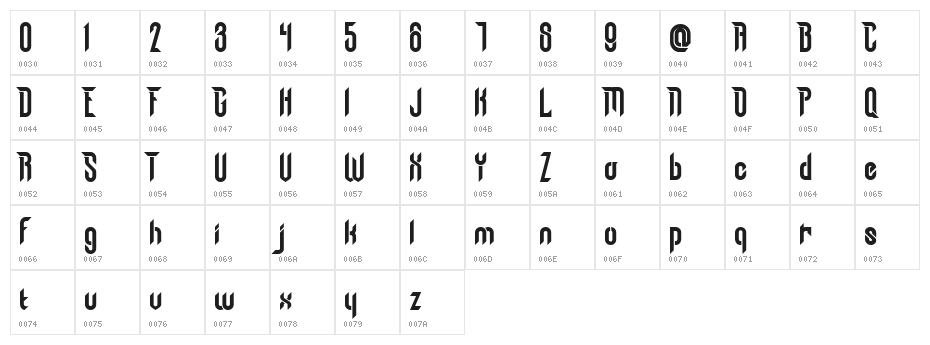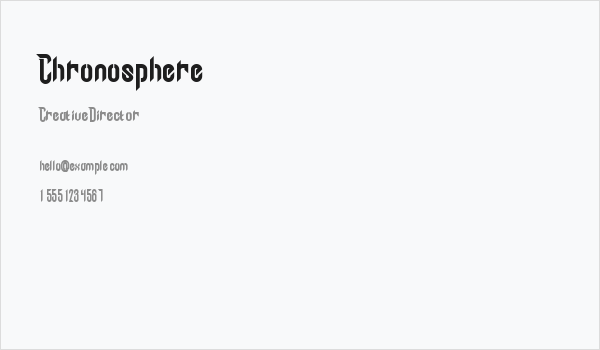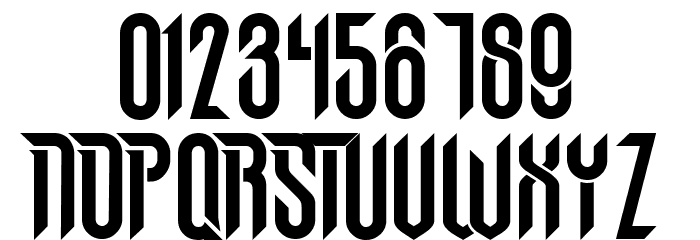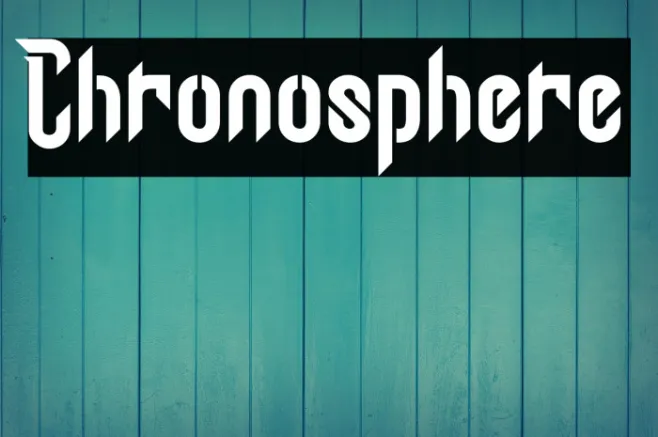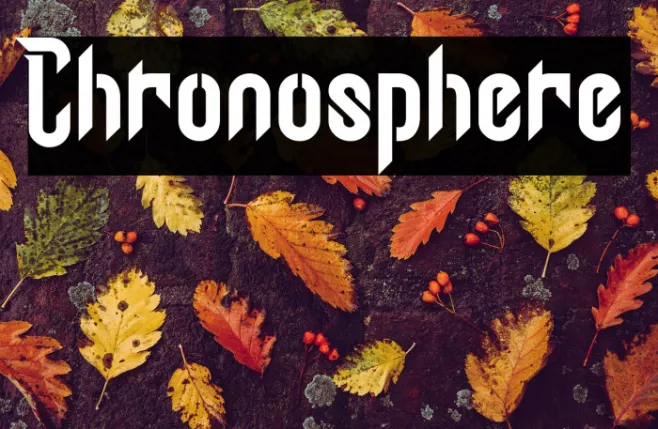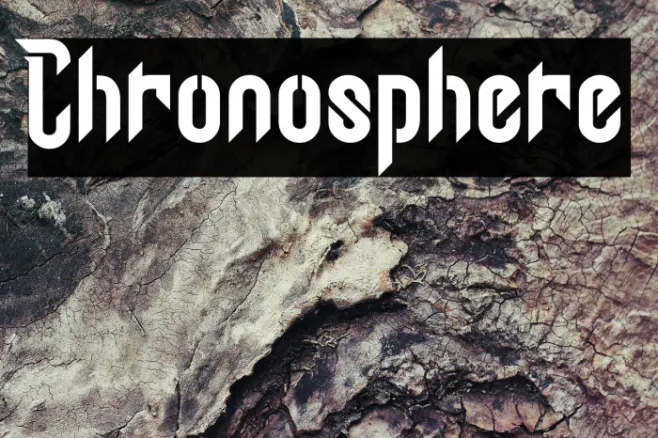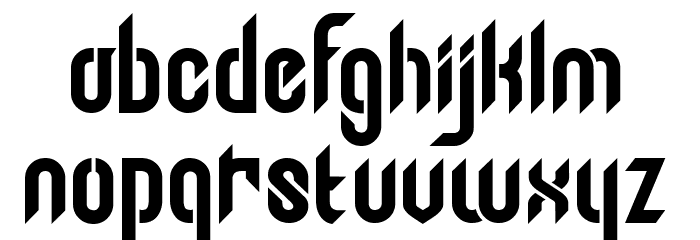
Chronosphere Font
Chronosphere Description
This font features a bold and angular design, characterized by sharp edges and a futuristic aesthetic. The uppercase letters are particularly striking, with a geometric style that gives them a strong presence. The lowercase letters maintain the same angular theme but with a slightly softer touch, making them more readable while still retaining the overall boldness. The numbers follow the same design principles, ensuring consistency across all characters. Special characters are integrated seamlessly, maintaining the font's distinctive style. This font is ideal for projects that require a modern and impactful look, such as branding, posters, or digital media.